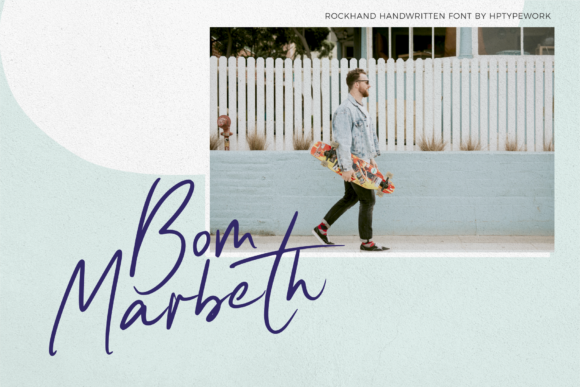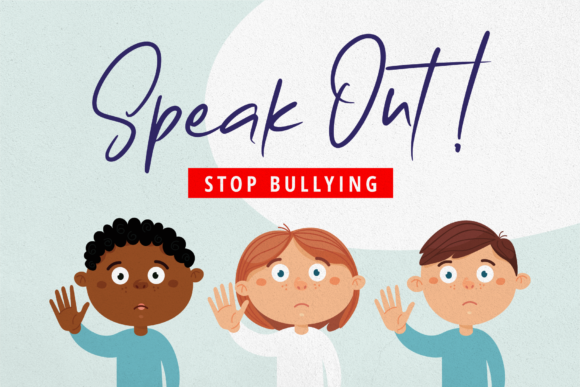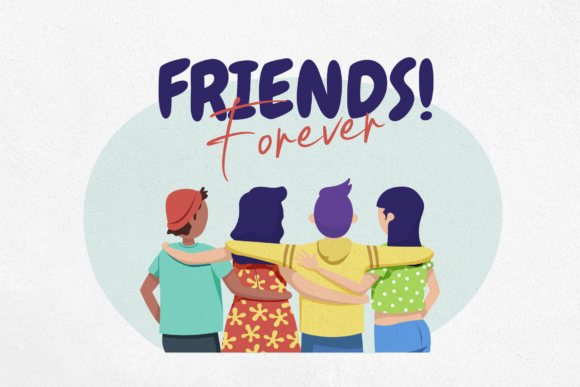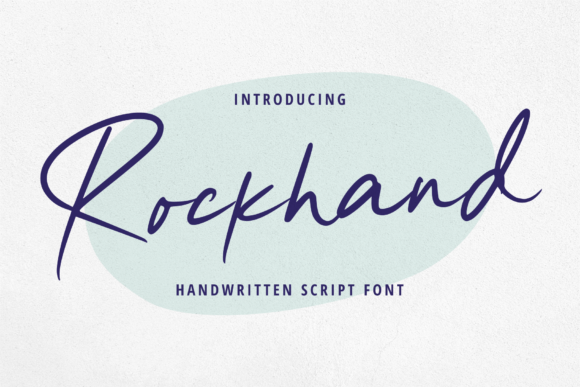
Introduction to Rockhand Font
Rockhand is a relaxed and cursive script font.
It is very suitable for poster ads, branding, invitation cards or any other designs which need a personalized touch This font is PUA encoded which means you can access all of the glyphs and swashes with ease.
Key Features of Rockhand Font